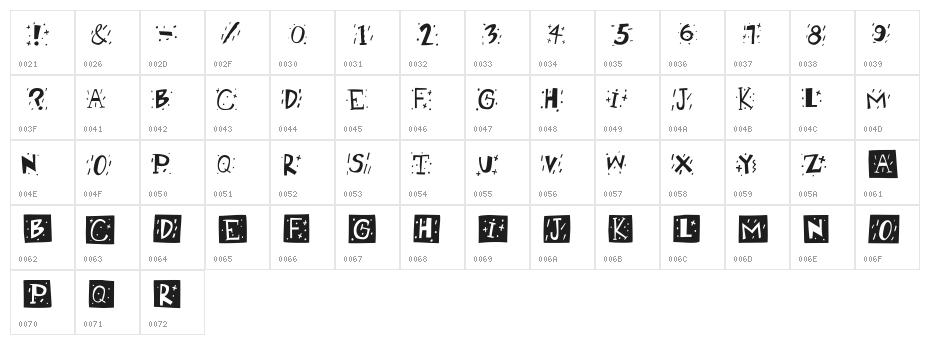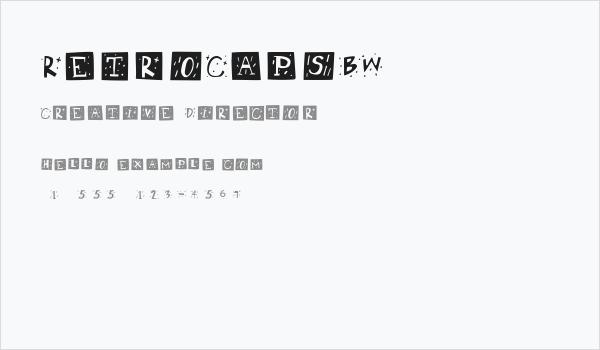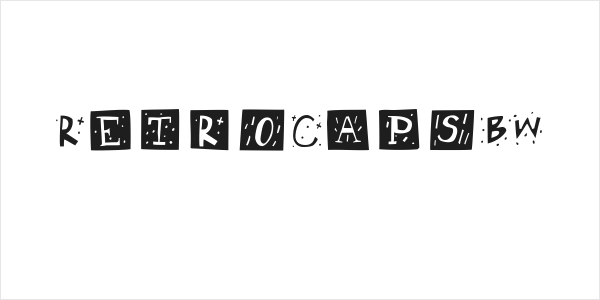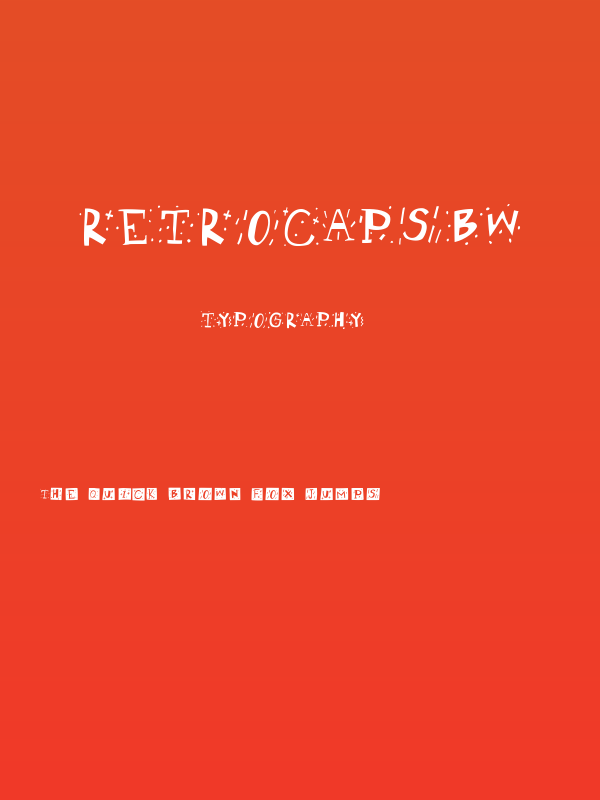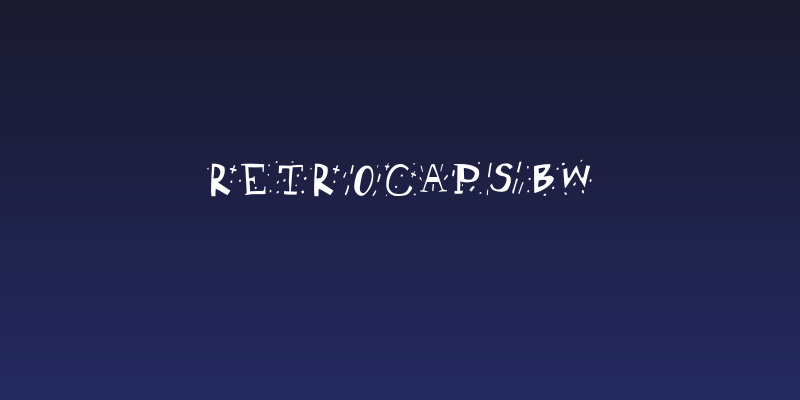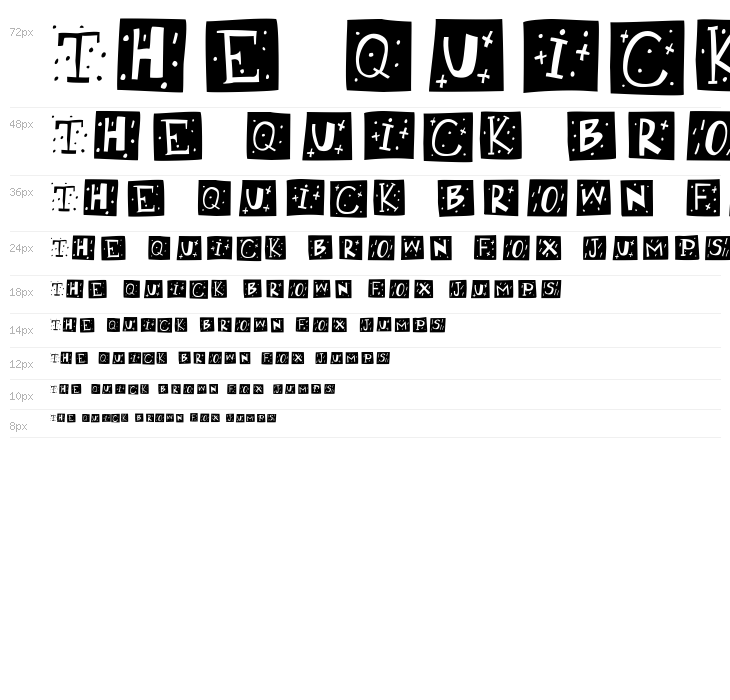
RetroCapsBW Font
RetroCapsBW Description
This font exudes a playful and retro vibe, characterized by its bold, blocky letters adorned with star-like decorations. Each character is uniquely styled, with varying angles and whimsical embellishments that give it a dynamic and lively appearance. The uppercase letters are particularly striking, with a mix of thick and thin strokes that add to the font's overall charm. The lowercase letters maintain this playful aesthetic, ensuring consistency across the typeface. Numbers and special characters are equally decorative, making this font ideal for projects that require a fun and eye-catching design.
| Overall Style | Retro, Decorative |
| Proposed Projects | Ideal for vintage-themed posters, children's book covers, party invitations, and playful branding materials. |